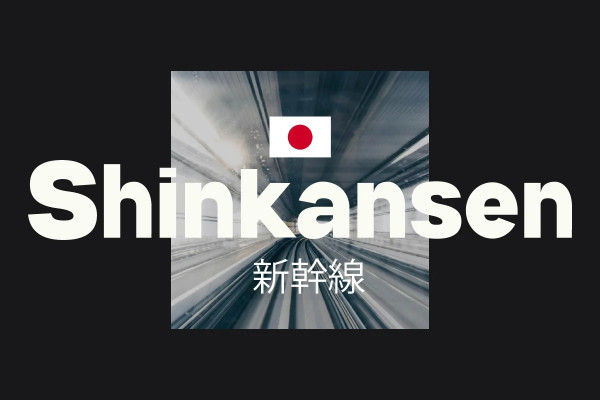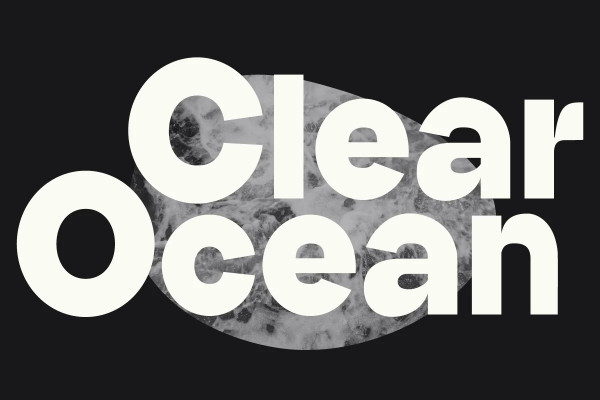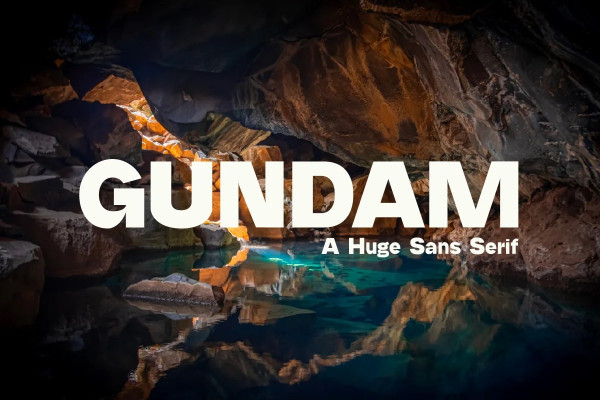
Gundam Font
Gundam Font, a giant bowl full of Sans Serif. It has a look of strength, character, and build. The shape has a few kinks here and there. I’d say that adds to its charm—and it does.
It’s great for headlines and titles, but also very easy to read in sentence form.
It’s perfect for branding and packaging, books, invitations, and anything else you want in a casual setting — without being too childish.